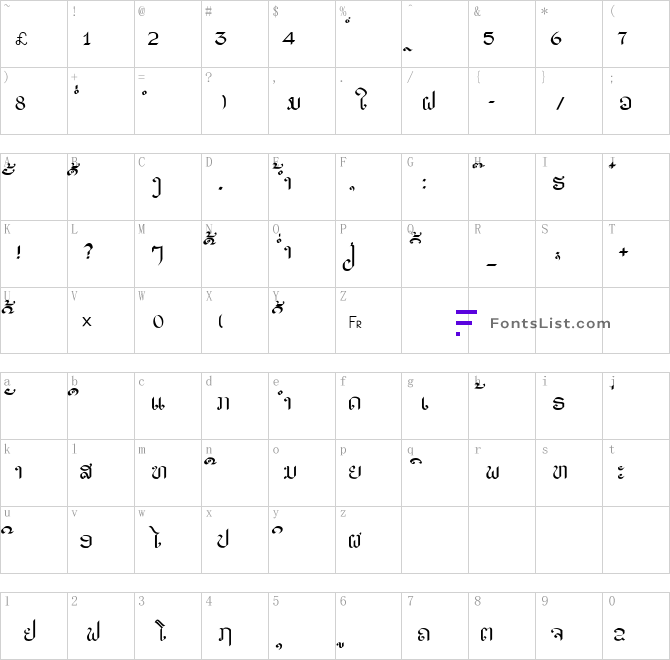
- Font Name:alice_3
alice_3-Medium.ttf is a very beautiful artistic font, alice_3-Medium.ttf is widely used in the design and printing of various books and pictures,alice_3-Medium.ttf has a strong visual impact,alice_3-Medium.ttf is a commonly used font in newspapers, magazines and books, and is used in posters, e-commerce Poster design, store design, logo design, font design and other fields.alice_3-Medium.